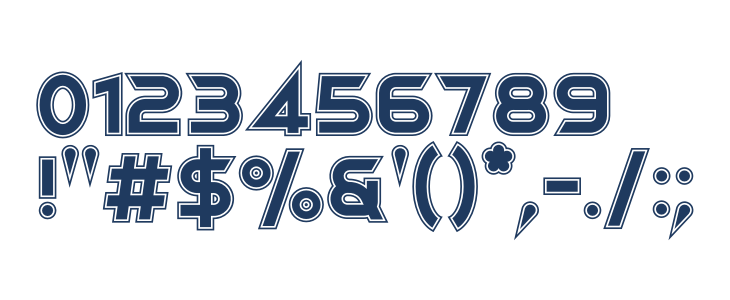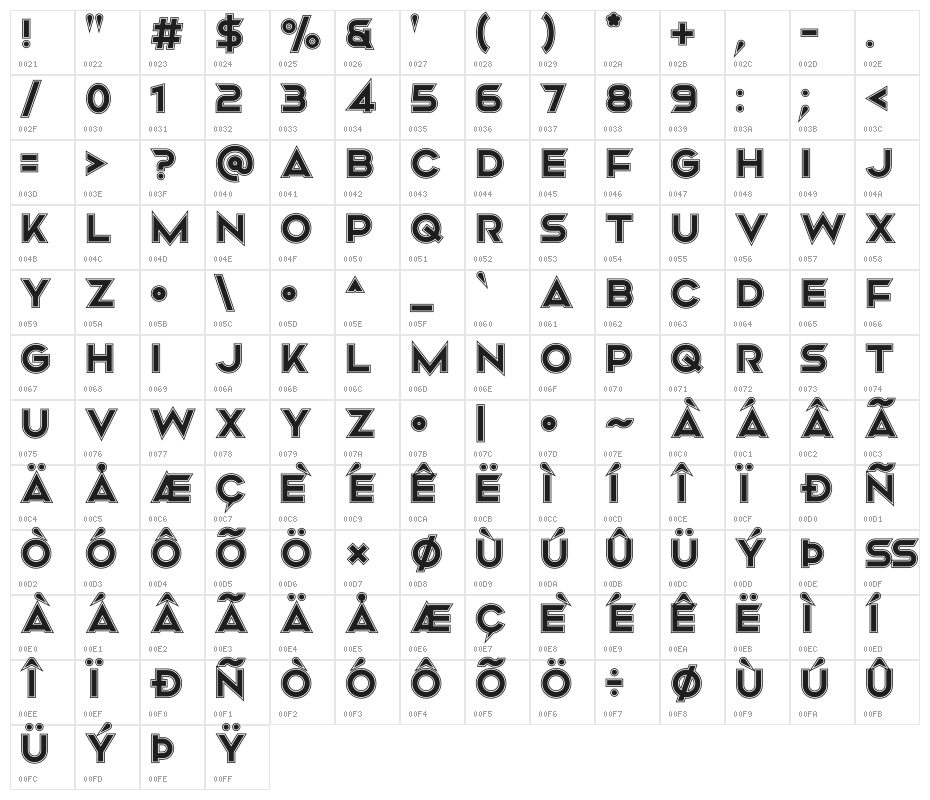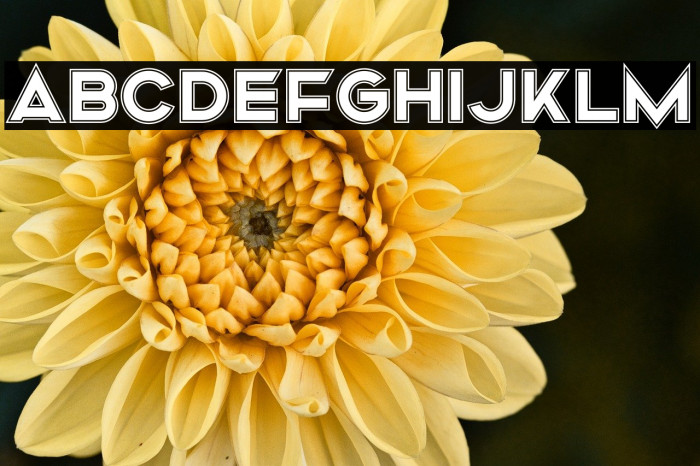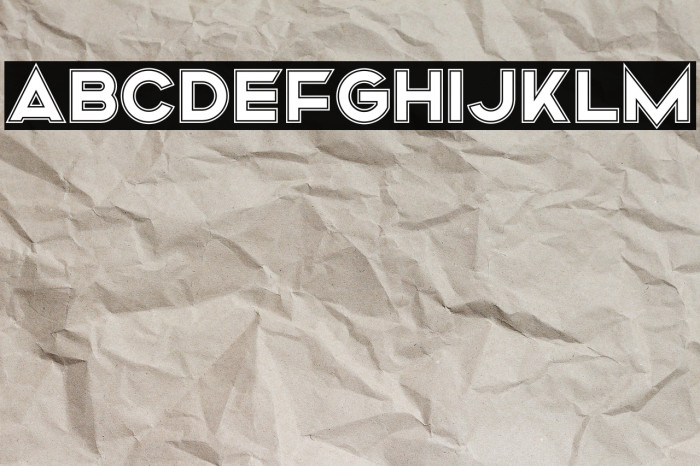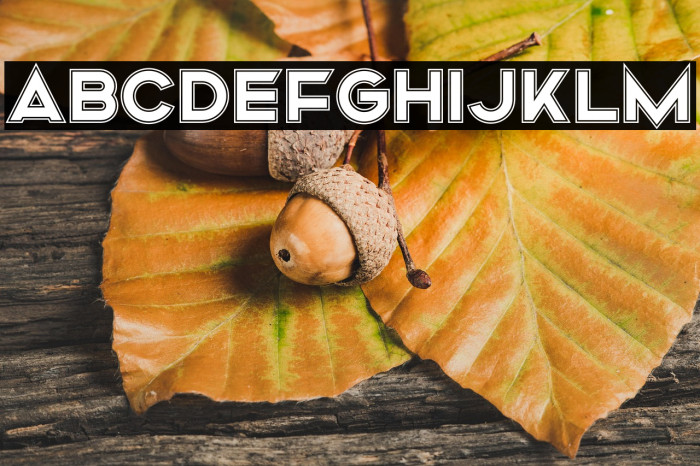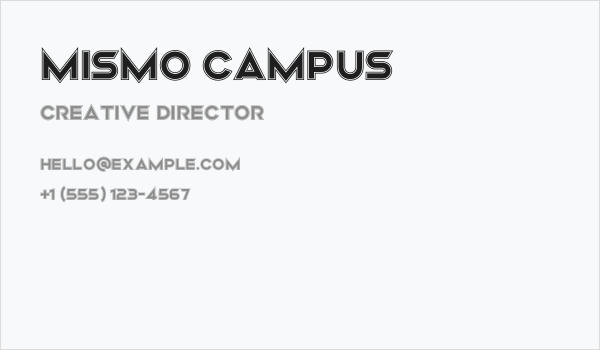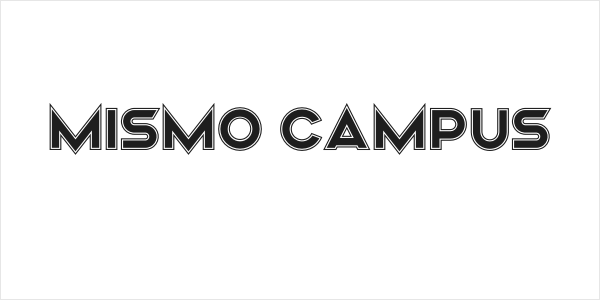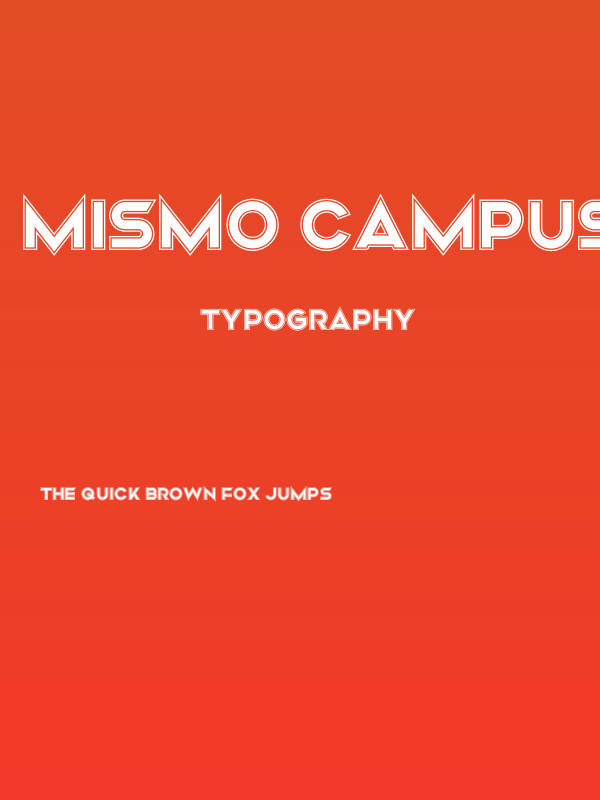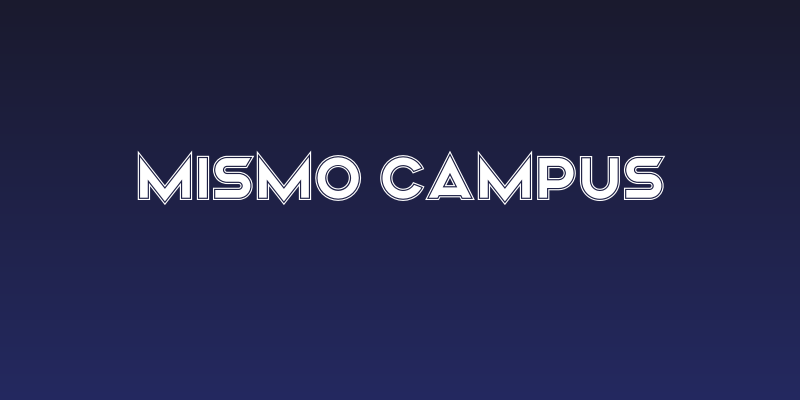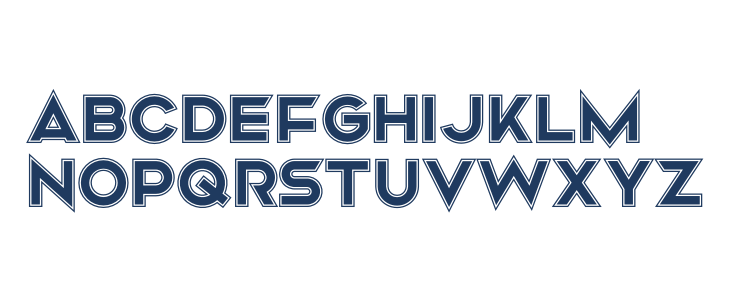
Mismo Campus Font
Mismo Campus Description
This font features a bold, geometric design with a strong emphasis on angular lines and sharp edges. Each character is outlined, creating a striking contrast between the inner and outer spaces. The uppercase letters are uniform in height, while the numerals and special characters maintain the same bold aesthetic. The font's style is reminiscent of retro-futuristic designs, making it ideal for projects that require a sense of modernity combined with a vintage touch. The characters are evenly spaced, ensuring readability while maintaining a distinct visual impact.
| Overall Style | Retro-Futuristic |
| Proposed Projects | Ideal for branding, posters, headlines, and any design needing a bold, modern touch. |